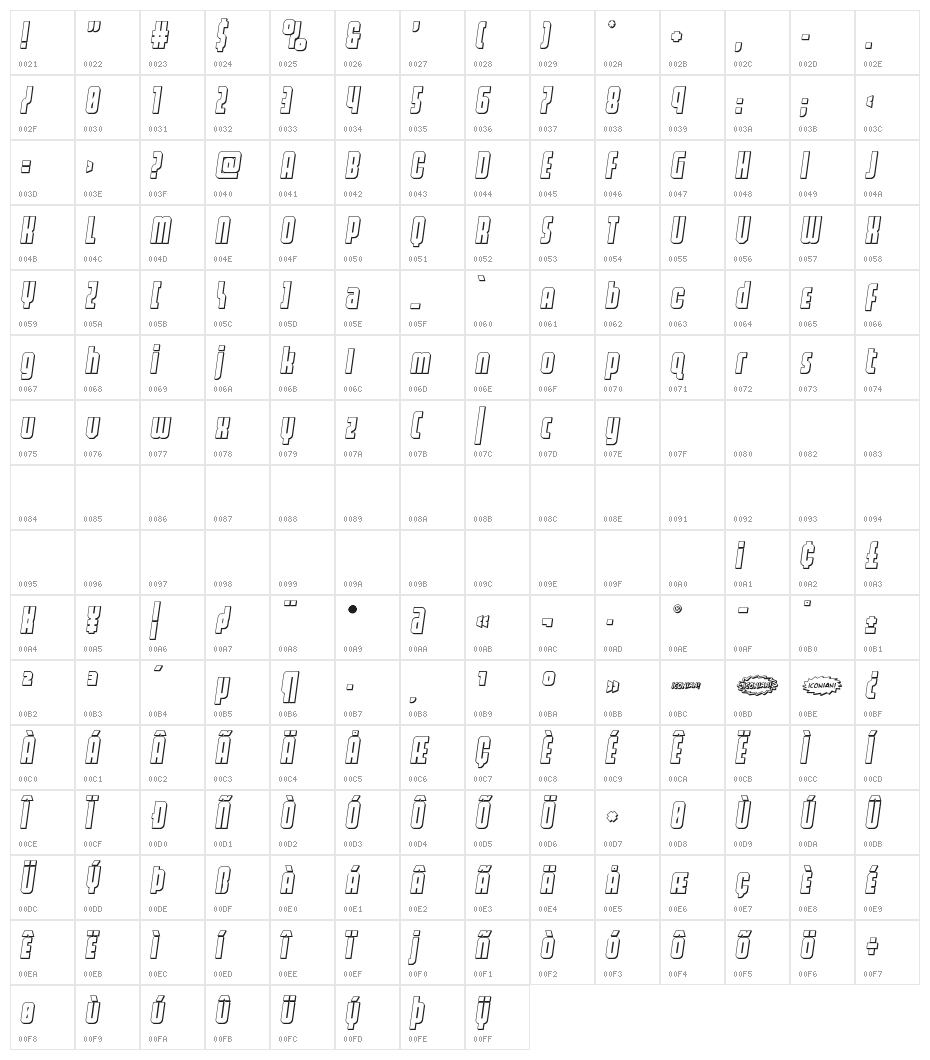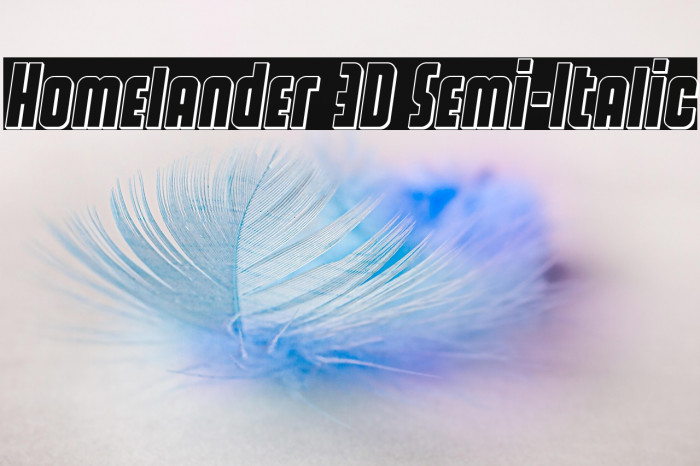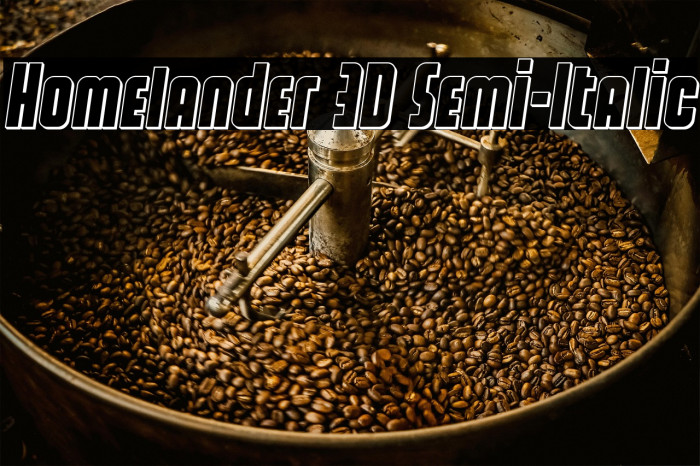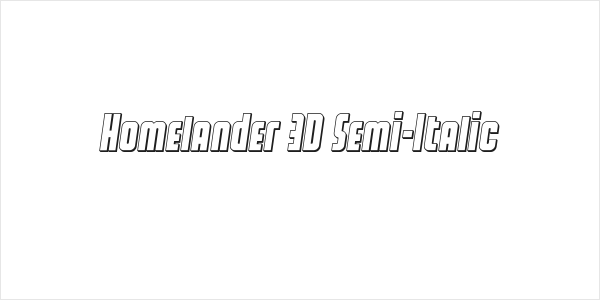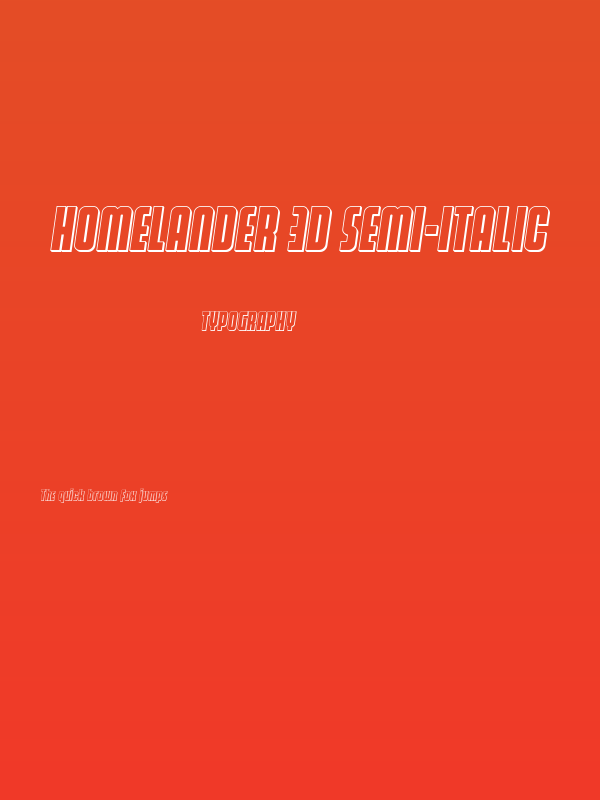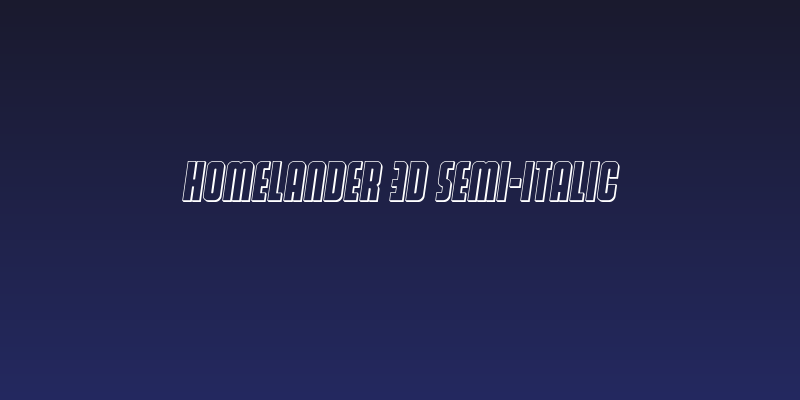
Homelander 3D Semi-Italic Font
Homelander 3D Semi-Italic Description
This font features a bold, three-dimensional appearance with a semi-italic slant, giving it a dynamic and modern look. The characters are outlined, adding depth and a shadow effect that enhances its visual impact. The uppercase and lowercase letters maintain a consistent style, with clean lines and a geometric structure. The numbers and special characters are designed to match the overall aesthetic, ensuring uniformity across all glyphs. This font is particularly eye-catching and suitable for projects that require a strong, attention-grabbing typeface.